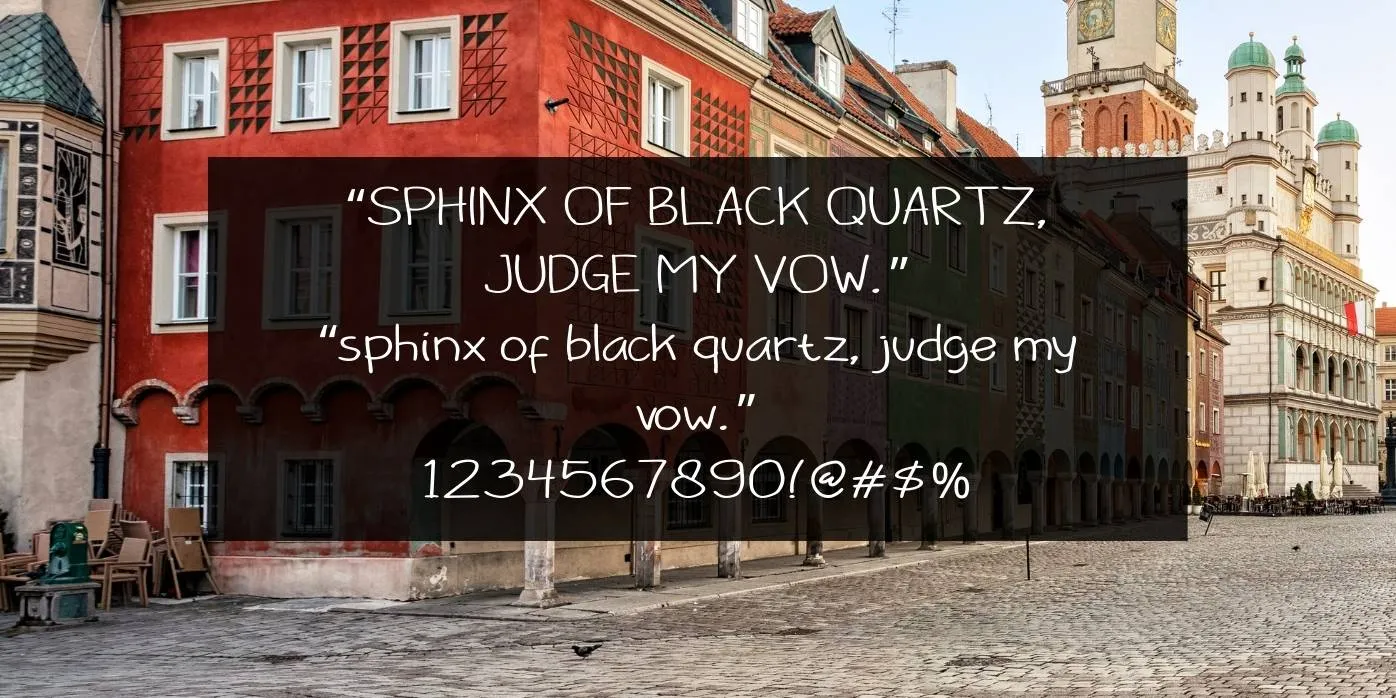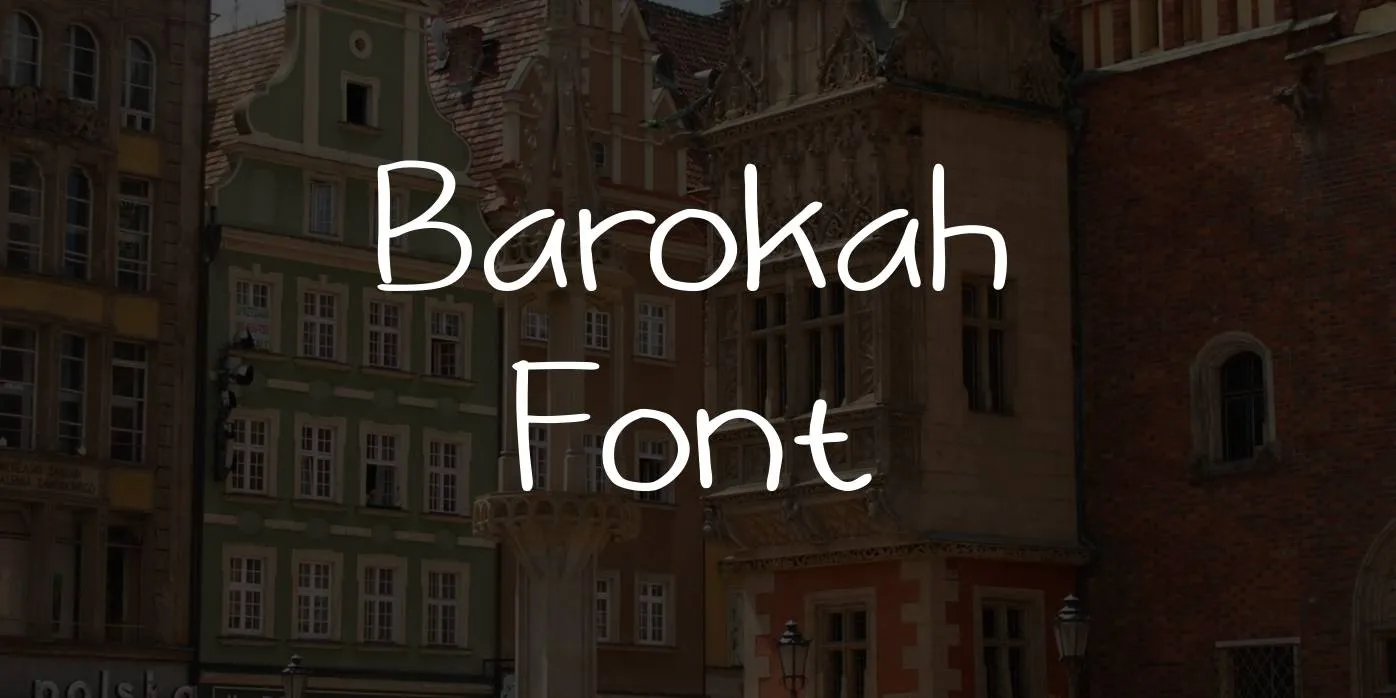
Barokah Font
Here, we are going to introduce Barokah Font. This staggering family belongs to the script typeface. It was developed by Alifinart. You can use this amazing font for various purposes.  you can use it for branding and identity, headlines, poster, and much more.
Barokah Font has a unique and stylish appearance. The letters are well-spaced and have good contrast. As a result, it is very easy to read. Another great thing about this font is that it comes in two versions: regular and italic.
So, you can choose the one that suits your needs best. For more classic features, you will have to use its alternative eccentric font which has the same features. If you are looking for a modern and stylish script font, then this typeface is very suitable. You can also use this typeface for Adobe Photoshop, and MS Word.